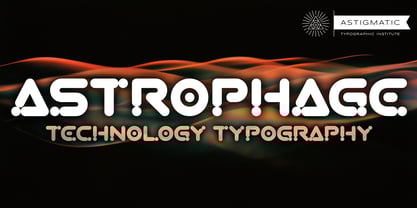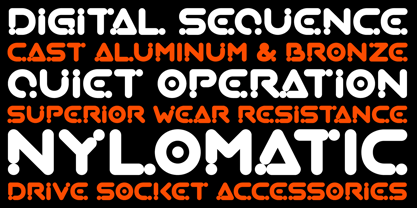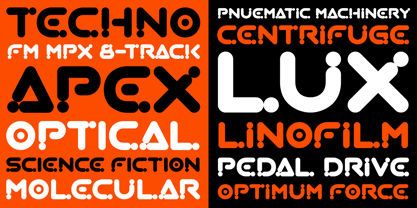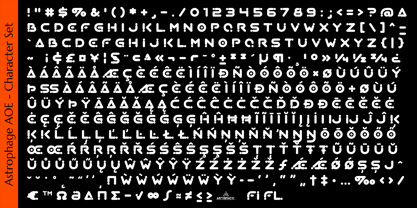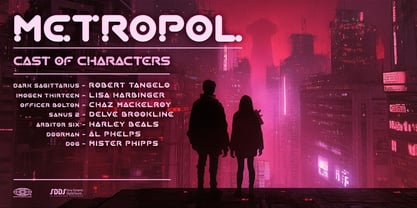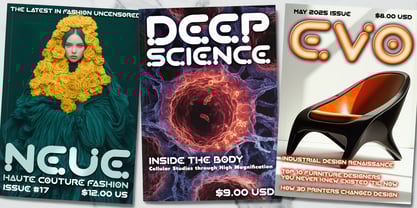
Astrophage AOE
by Astigmatic
The Astrophage AOE Font Family was designed by Brian J. Bonislawsky and published by Astigmatic. Astrophage AOE contains 1 styles.
Astrophage AOE is a retro-futuristic display typeface inspired by the optimistic engineering aesthetics of mid-century science, atomic-age diagrams, and early speculative technology manuals. Each letterform is constructed from smooth tubular strokes that terminate in rounded node caps, creating the appearance of molecular structures, orbital connectors, or electronic junction points. The repeating node structures create a rhythmic pattern across words, giving the alphabet a mechanical precision while still maintaining a playful and approachable tone. Circular counters and flowing curves reinforce the feeling of engineered balance, producing a style that feels equally at home on vintage science posters, retro computing graphics, space-age packaging, or futuristic branding projects. Astrophage AOE carries the unmistakable optimism of the atomic era, when science, exploration, and technology promised an exciting future. Within the archives of the Astigmatic One Eye Typographic Institute it is cataloged as a specimen of the Mechaniform Optimism period, an alphabet where every curve and node suggests curiosity, invention, and discovery.
Designers: Brian J. Bonislawsky
Publisher: Astigmatic
Foundry: Astigmatic